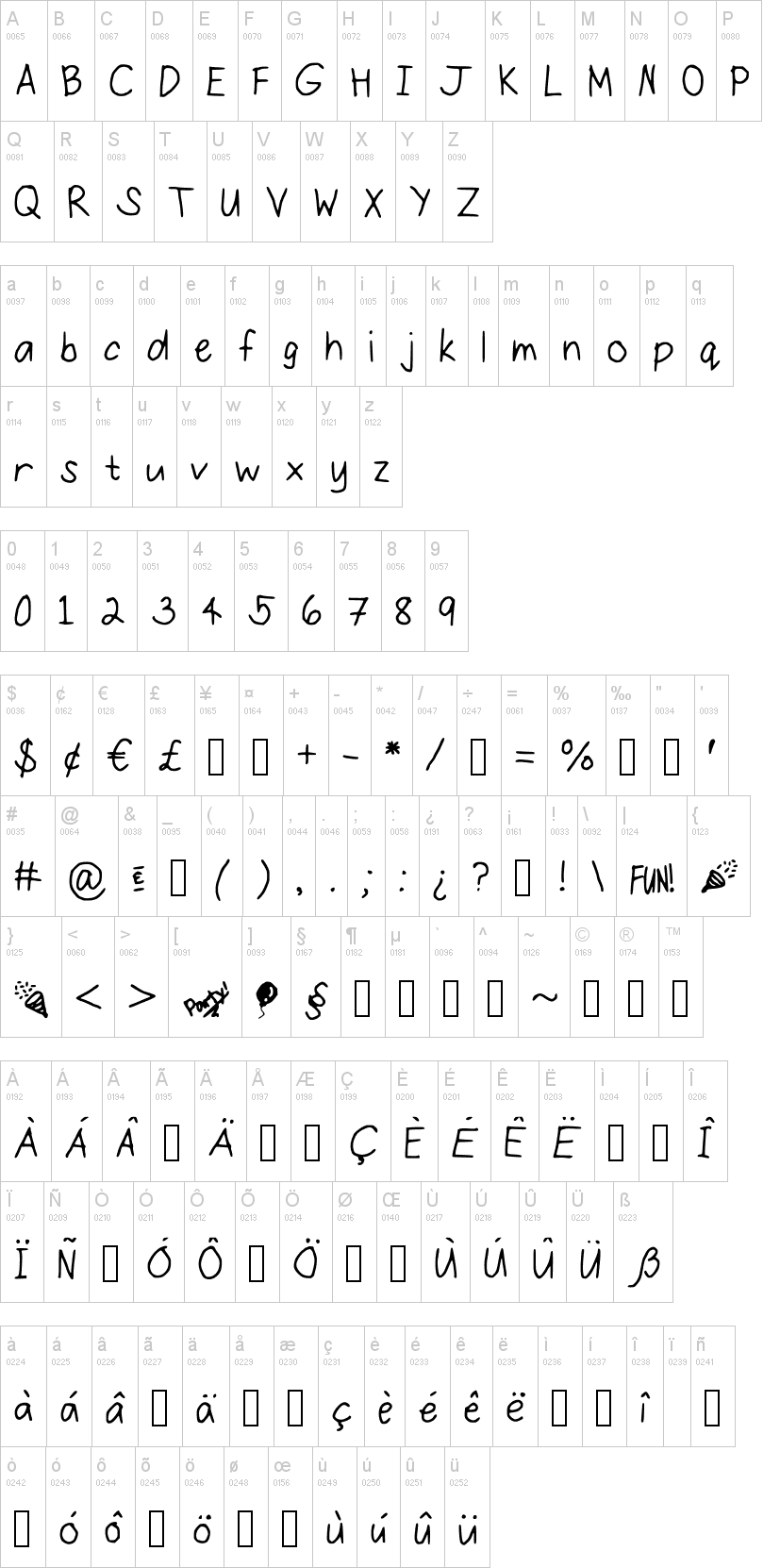
Confetti Falling
Anyhoo, Confetti Falling is a cute, pencil-drawn font. And I got a little hardworking today, so I included French characters! Don't forget the doodles also included in the pack.